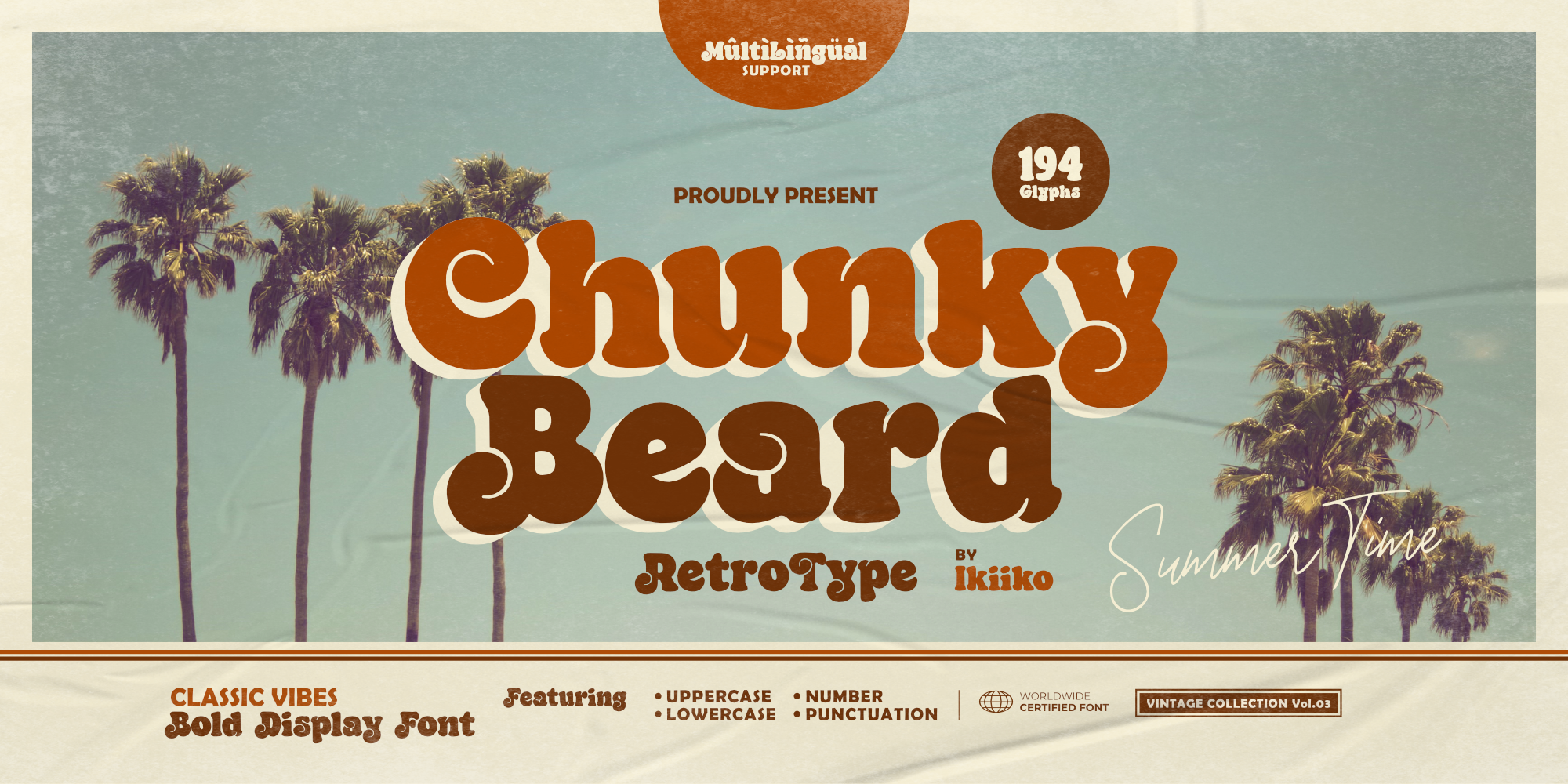
This bold display font is perfect for brewery logos, barbershop signage, vintage posters, masculine branding, apparel designs, packaging labels, restaurant menus, and rugged advertising campaigns that need strong visual impact.
Chunky Beard Font is exciting because it embodies raw masculine energy with its thick, robust letterforms and vintage-inspired character design. The font delivers powerful visual presence that commands attention and perfectly captures the spirit of traditional craftsmanship.
The Chunky Beard Font family includes regular and bold weights with uppercase letters, numerals, and special characters, giving designers comprehensive options for creating impactful typography.
Seeking bold typography that makes a statement? Chunky Beard Font Free Download provides designers with powerful letterforms that evoke strength and authenticity. This distinctive typeface combines vintage charm with modern functionality, making it ideal for brands targeting masculine demographics. Whether you're designing craft beer labels, barbershop advertisements, or outdoor adventure campaigns, this font delivers commanding presence. The carefully designed characters feature consistent weight distribution while maintaining readability at various sizes. Perfect for businesses in grooming, brewing, woodworking, and lifestyle industries that value traditional craftsmanship. The font's solid construction and vintage appeal create memorable brand recognition. Each letter showcases deliberate thickness that translates beautifully across digital and print media. Download today and add masculine sophistication to your design projects with this premium display font that combines heritage aesthetics with contemporary usability.